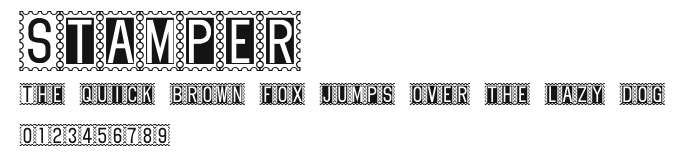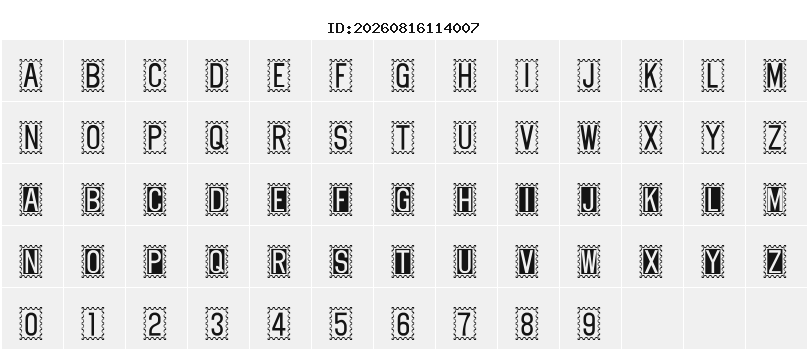
• Font Name: Stamper
• Full Font Name: Stamper
About Stamper.ttf
Stamper.ttf is a modern, elegant sans-serif font designed for ultimate readability and visual harmony. Perfect for branding, headlines, web design, and print materials.